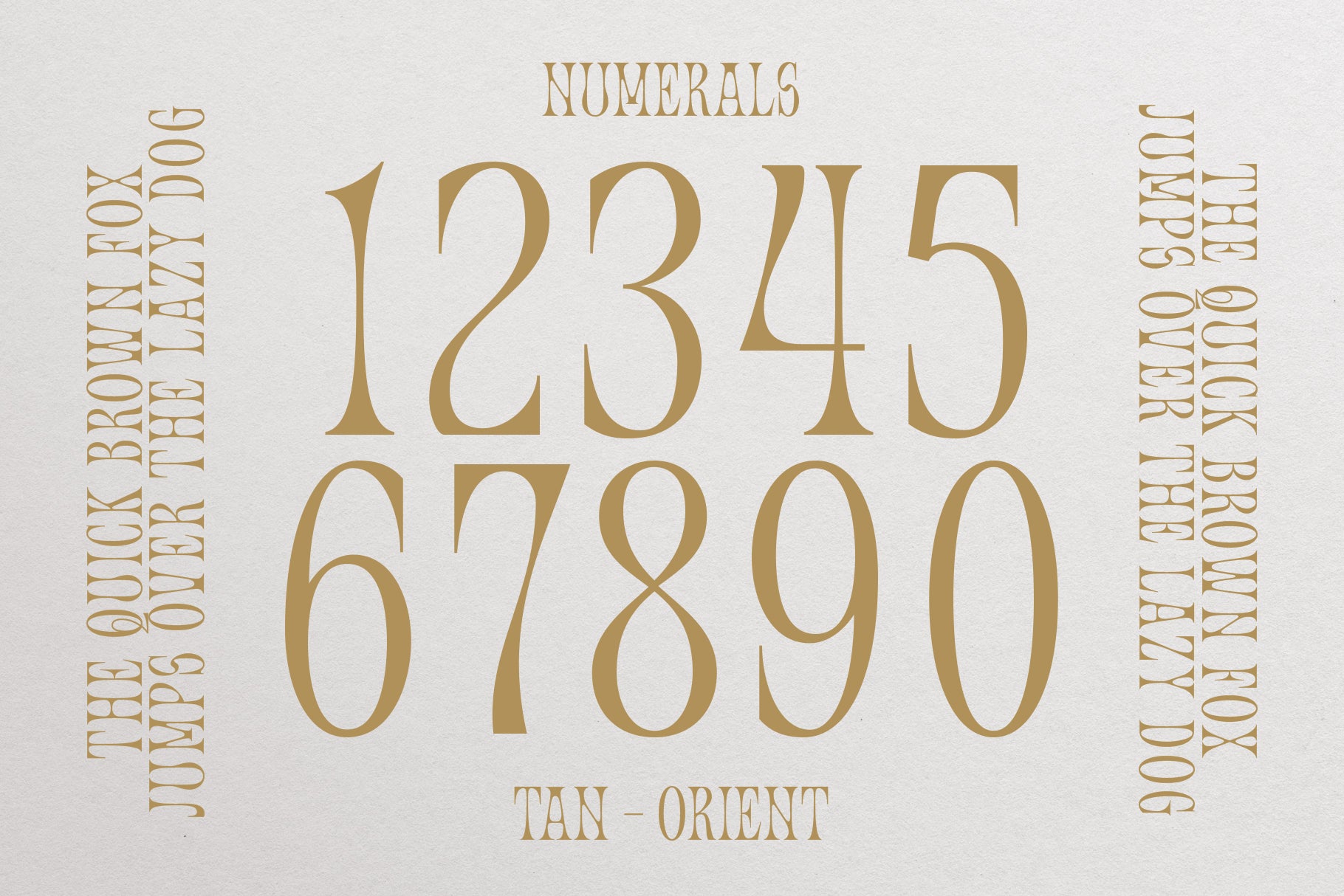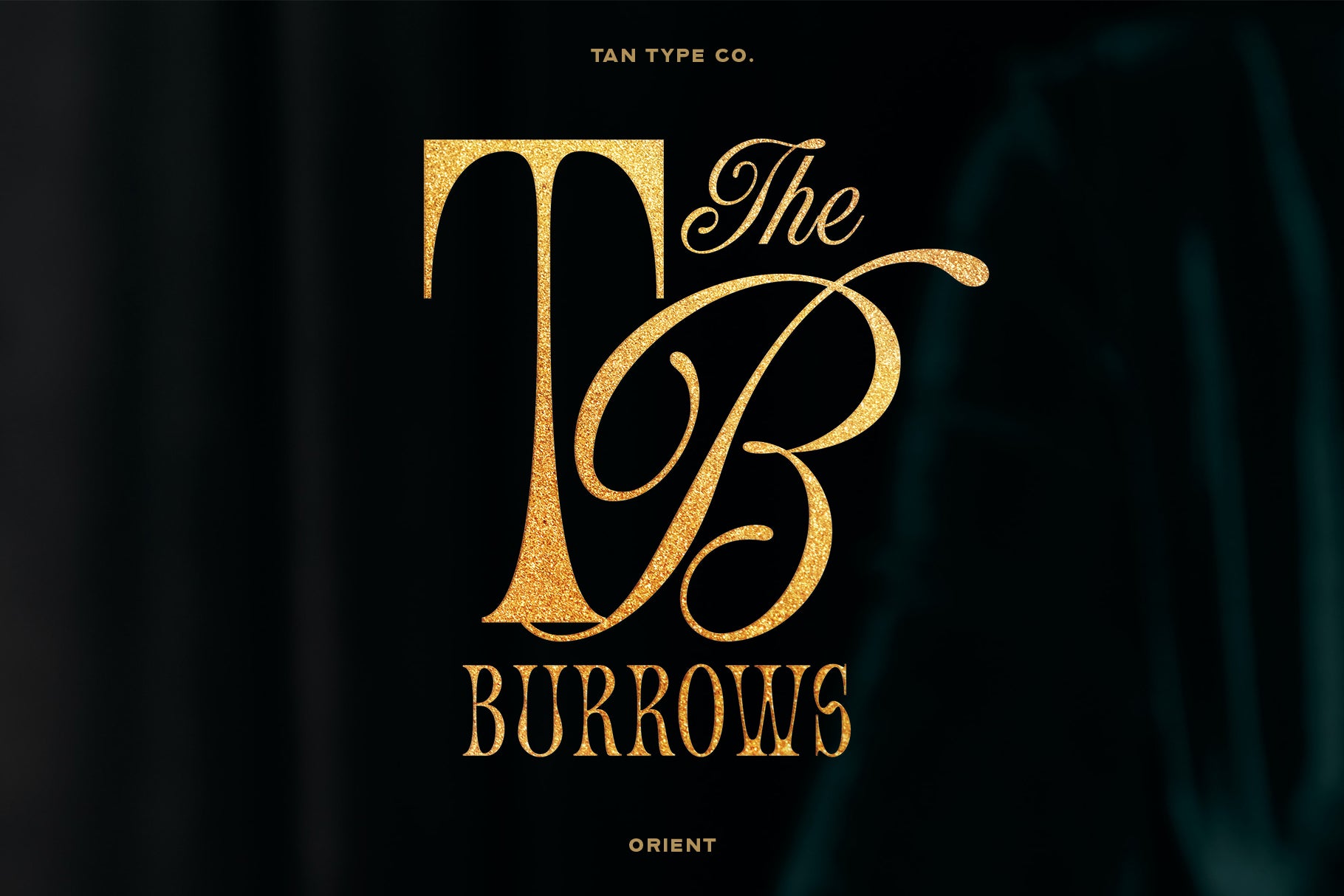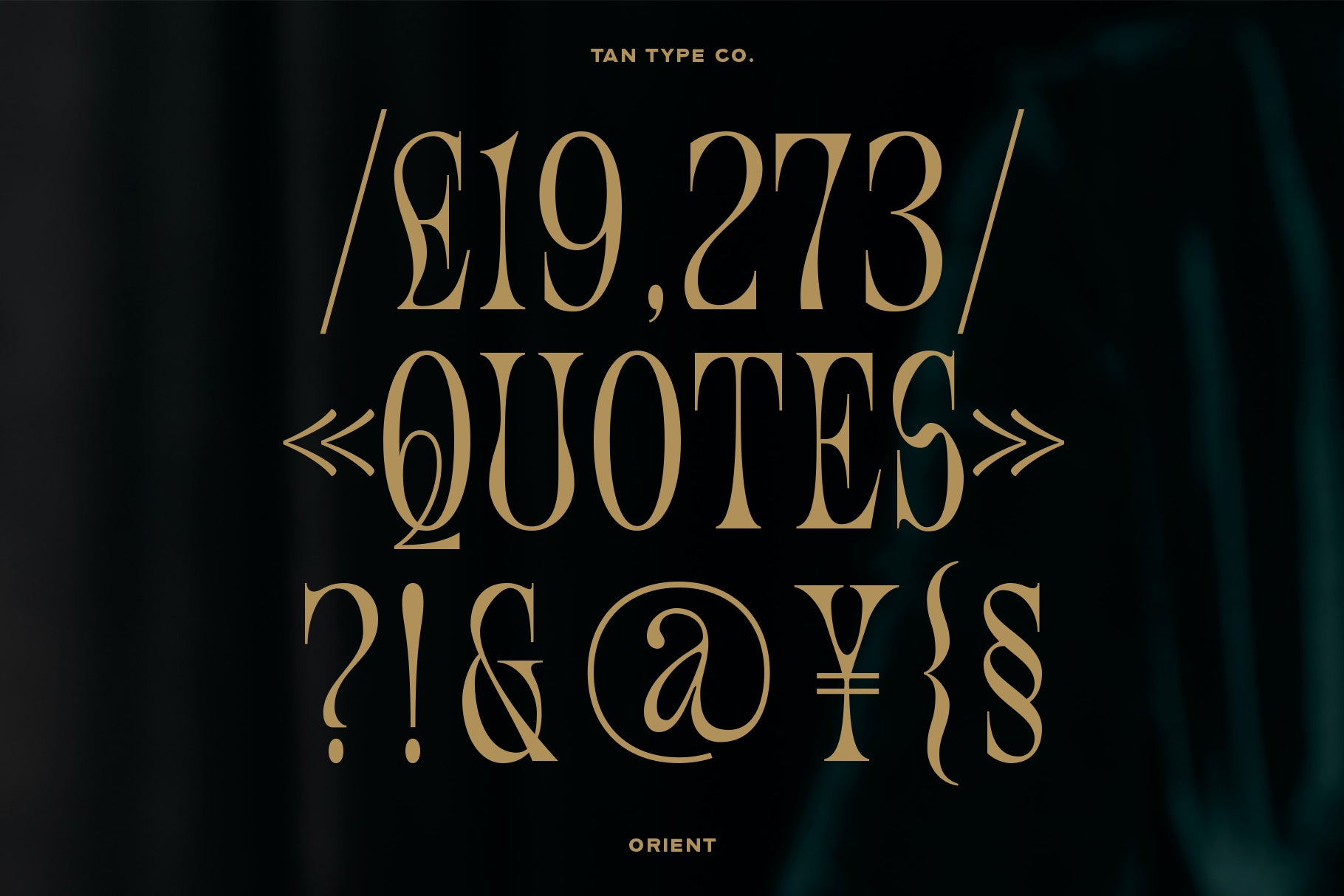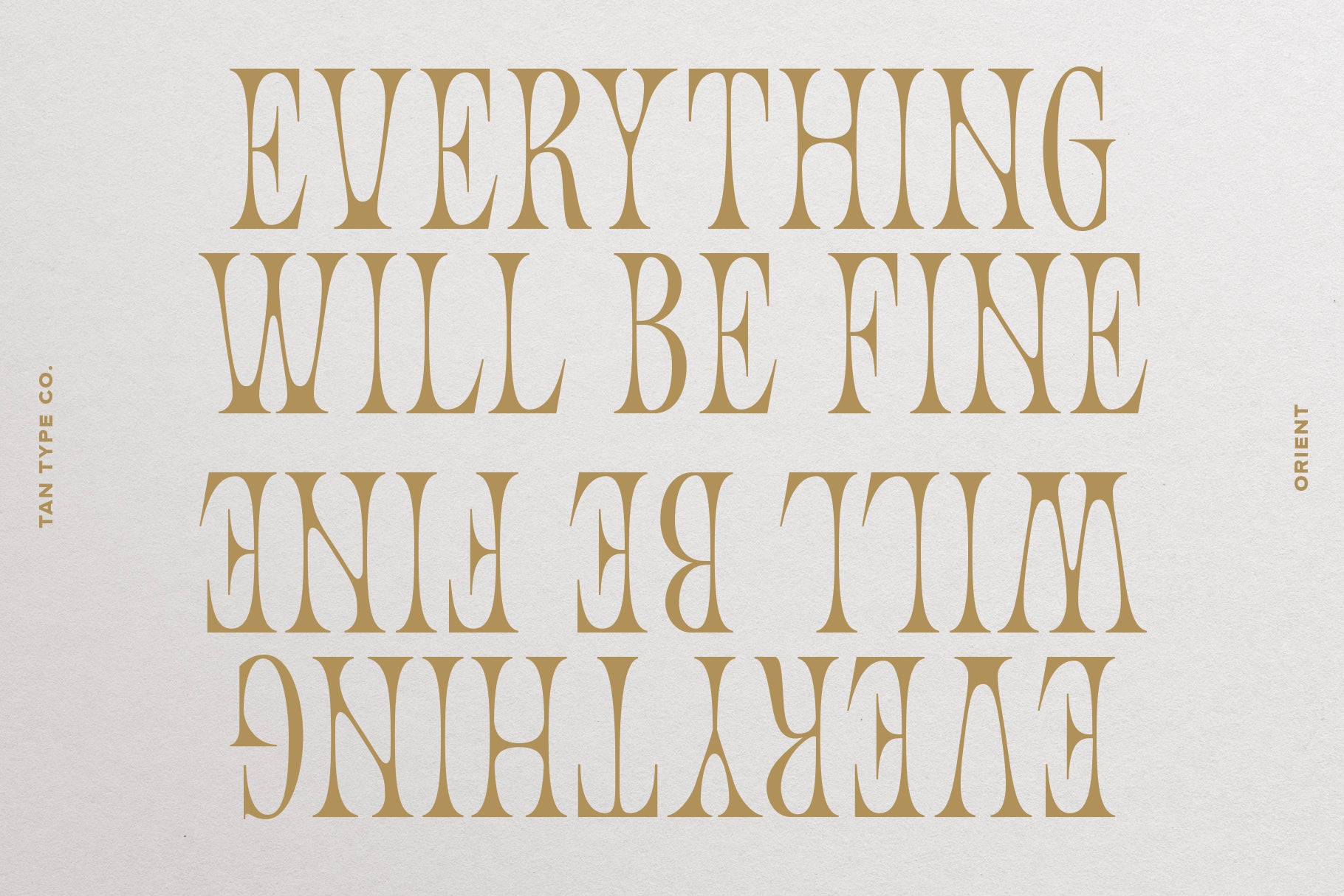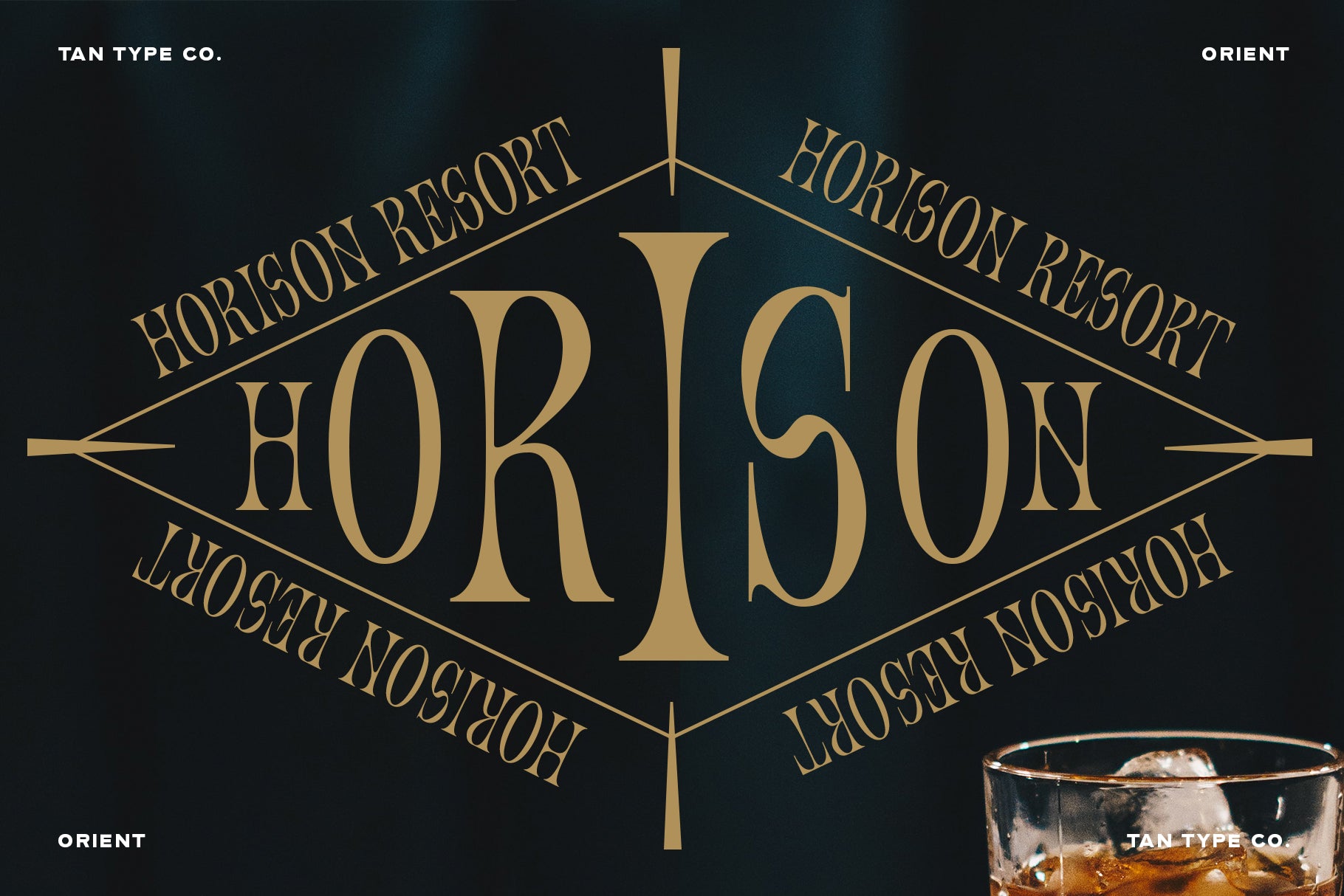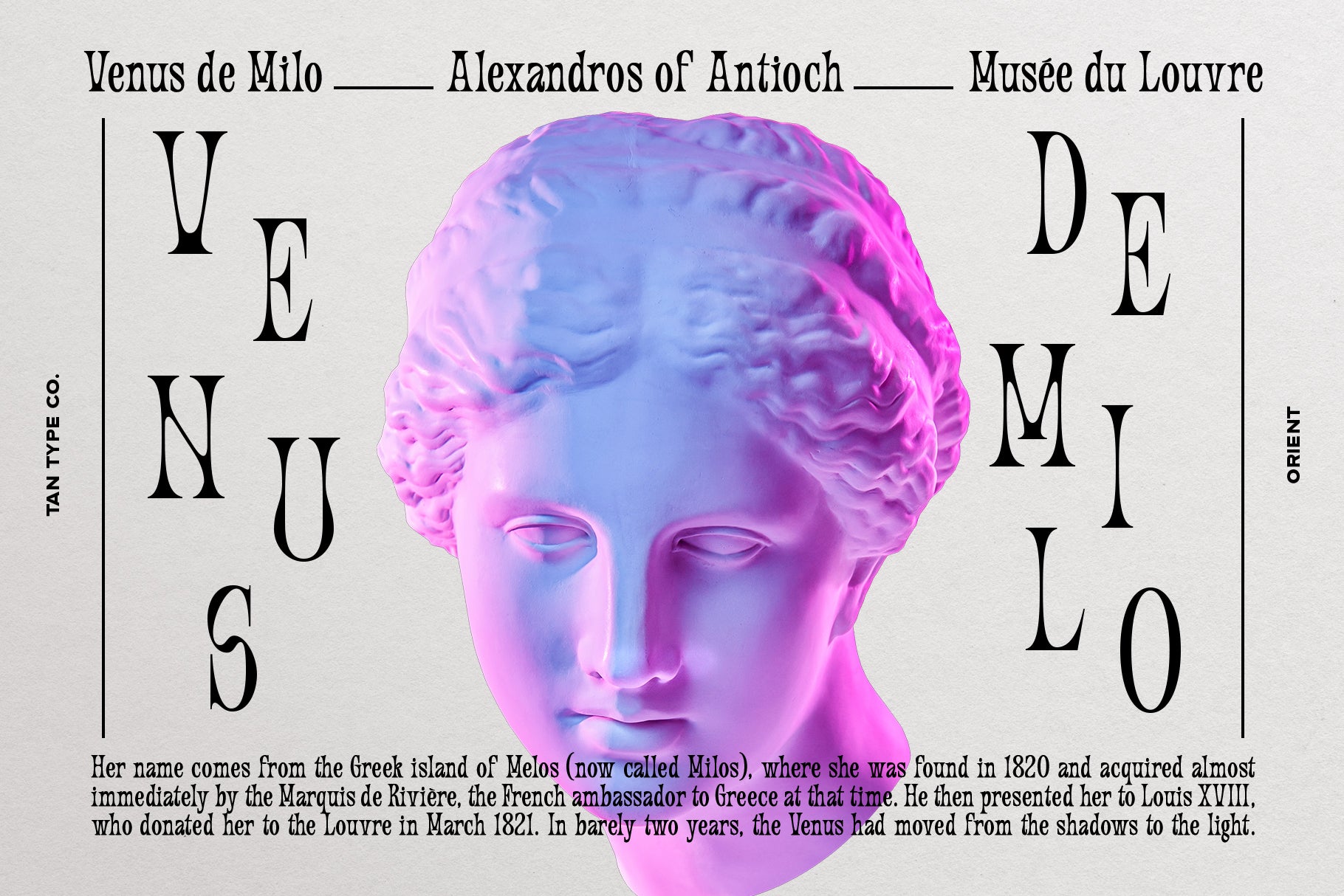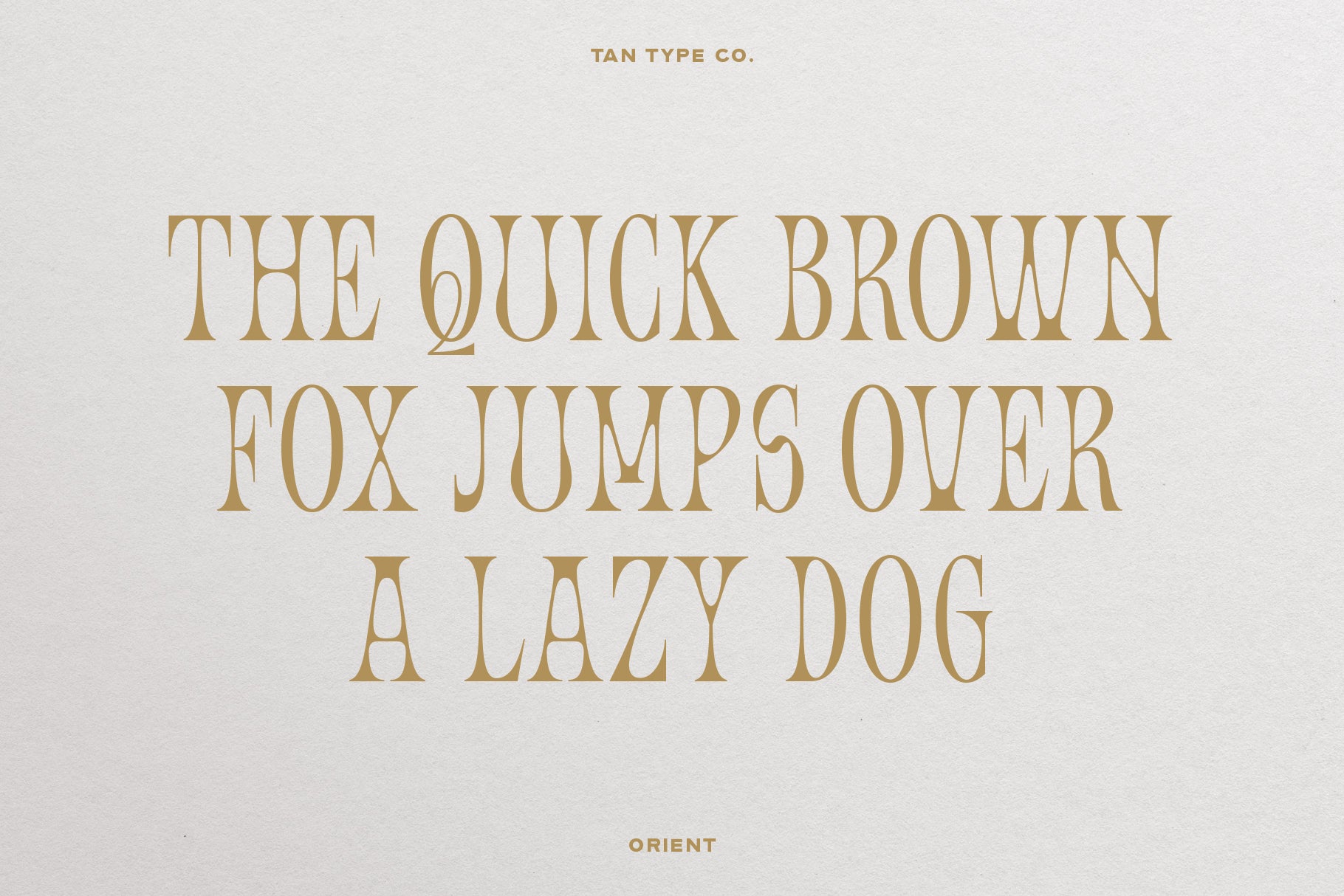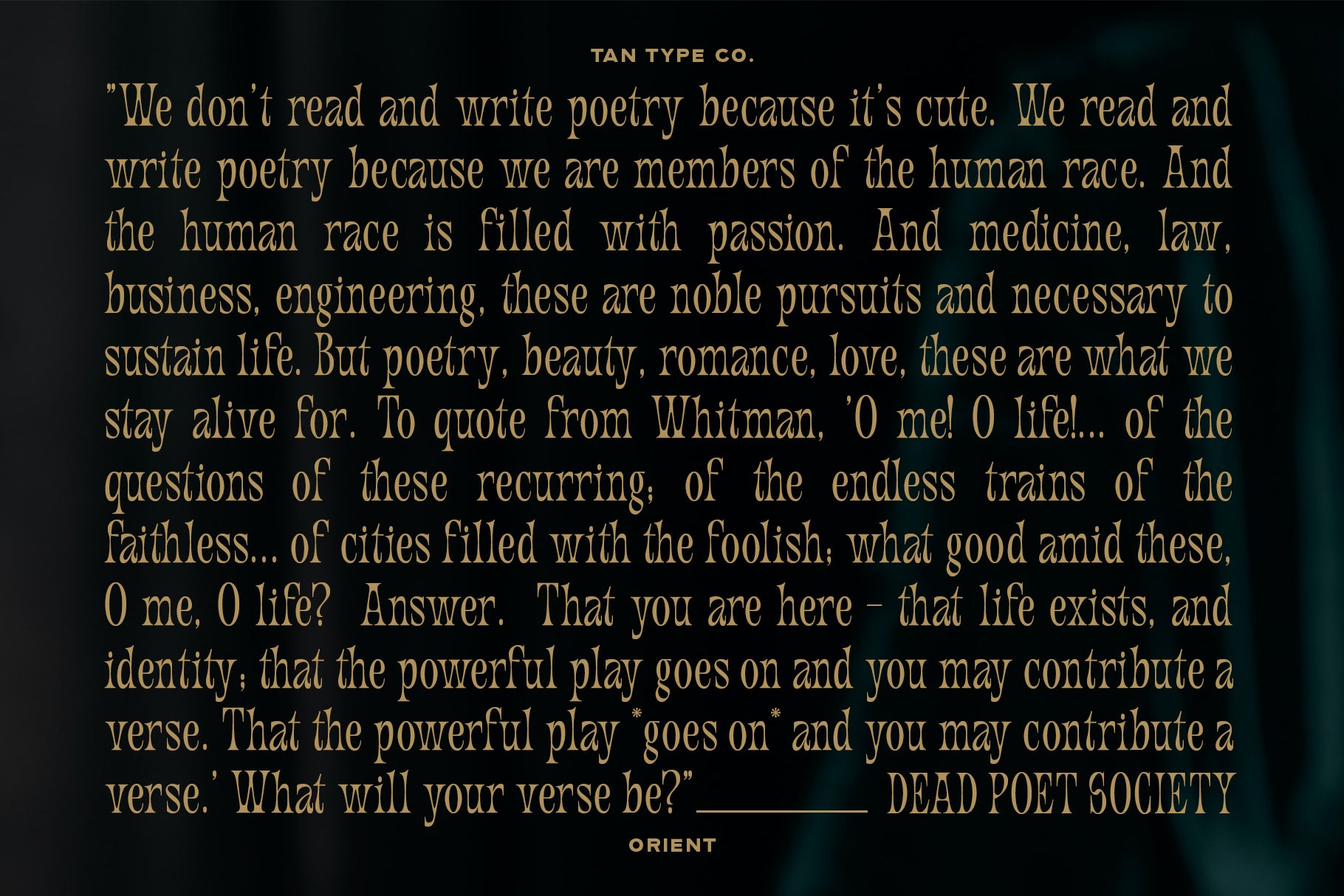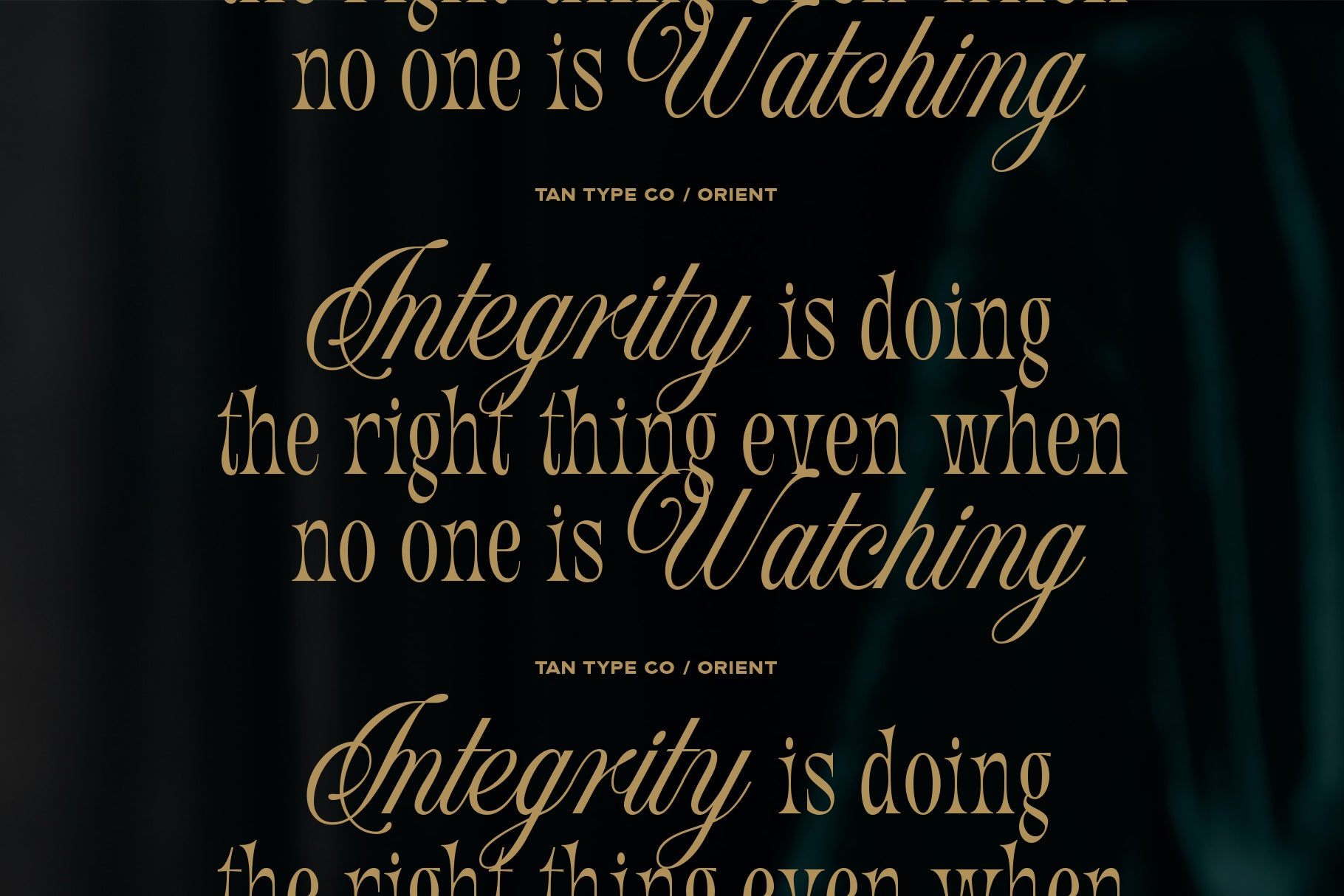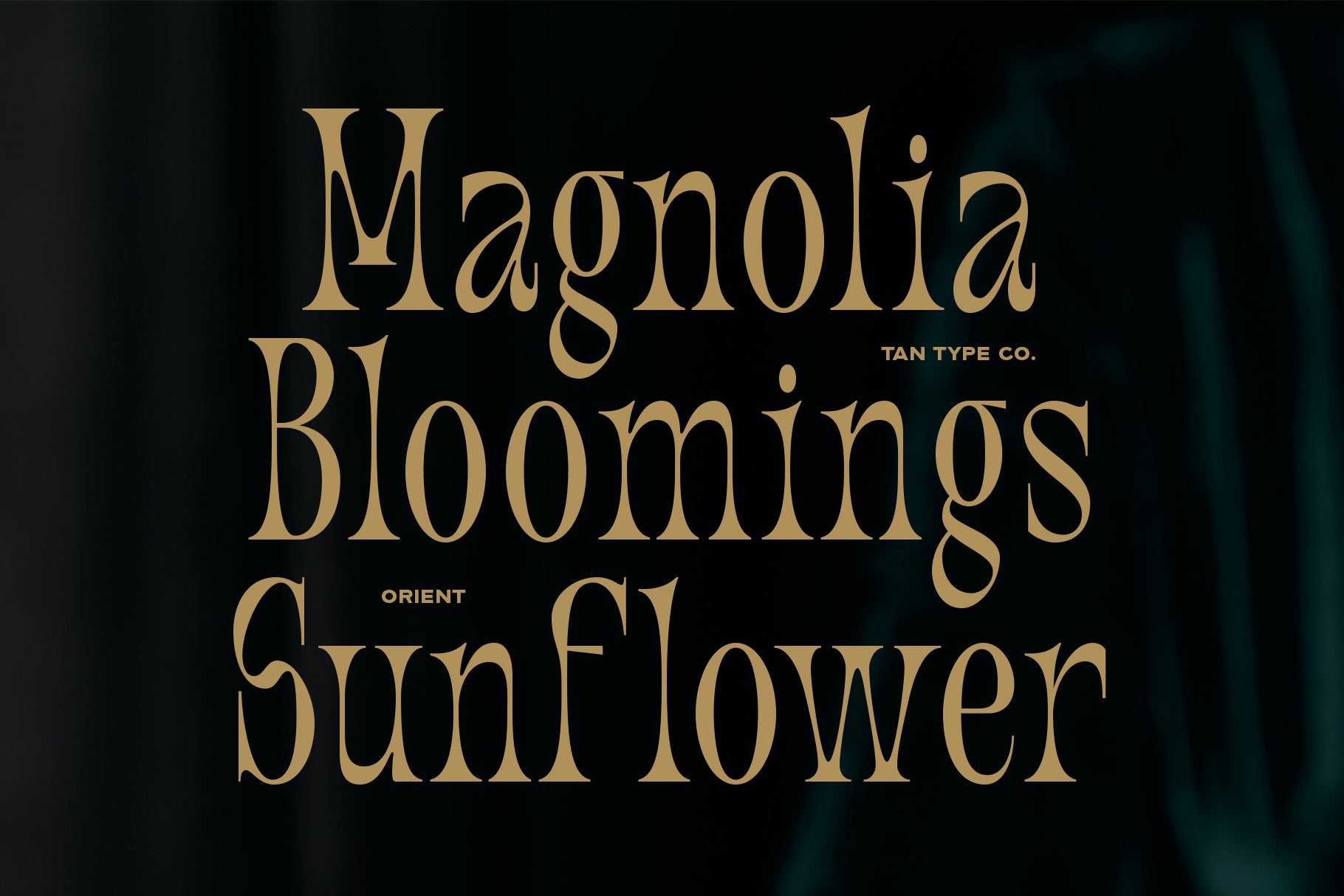
The Orient is a luxurious serif display typeface that exudes opulence and grandeur. With its elongated, high-contrast letterforms and shimmering gold aesthetic, this typeface captures the elegance of vintage travel posters and Art Deco glamour. Perfect for high-end branding, editorial spreads, packaging, and event invitations, TAN The Orient makes a bold statement wherever sophistication is key.